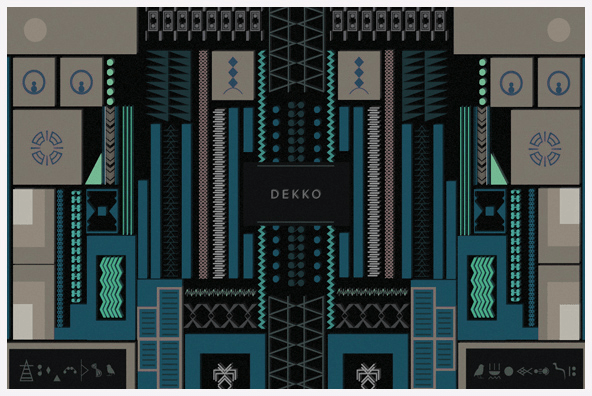
About YWFT Dekko
YWFT Dekko is an icon, symbol and pattern style dingbat font created with the ability to execute multiple design ideas. The font was designed with tight kerning, allowing the ability on certain letter combos to create intriguing pattern designs. This…